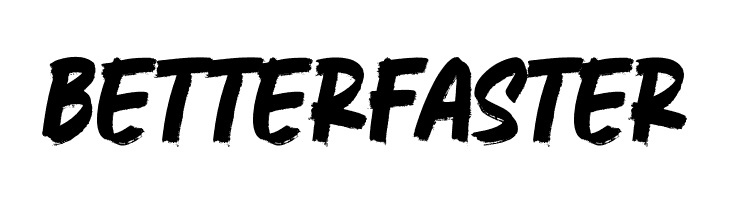
A bold, brush script font with dynamic and expressive strokes.
A bold, brush script font with dynamic, italicized strokes.
A bold, brush-stroke font with a dynamic and textured appearance.
A bold, cursive font with brush-like strokes and a dynamic, artistic style.